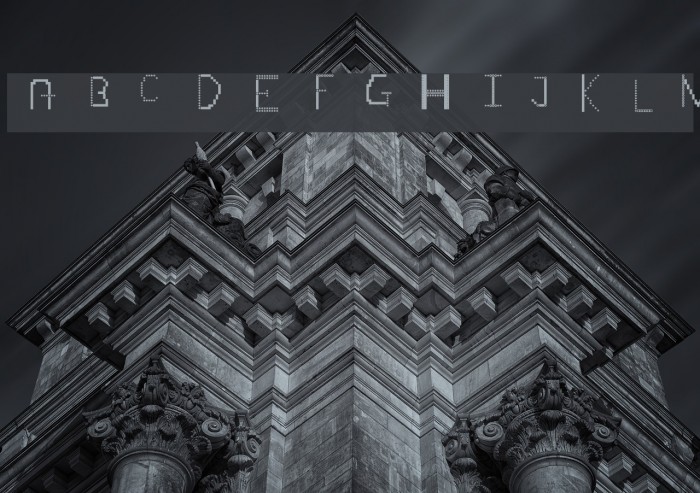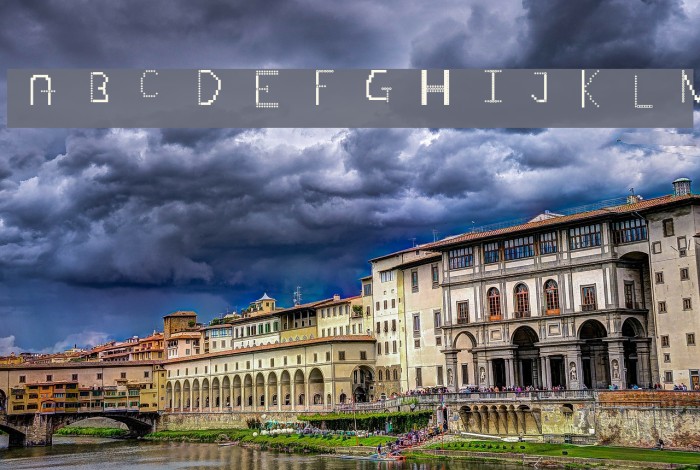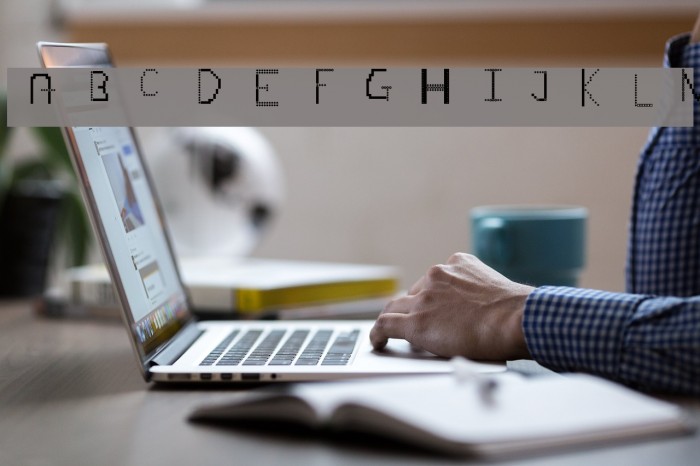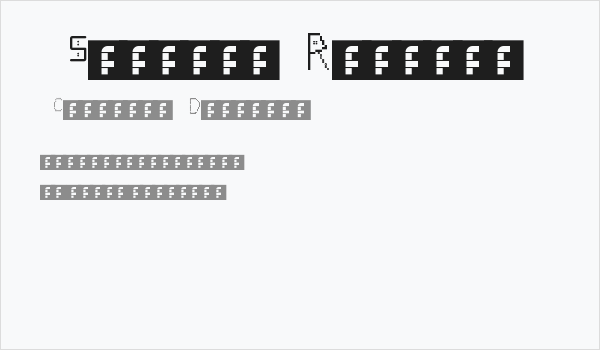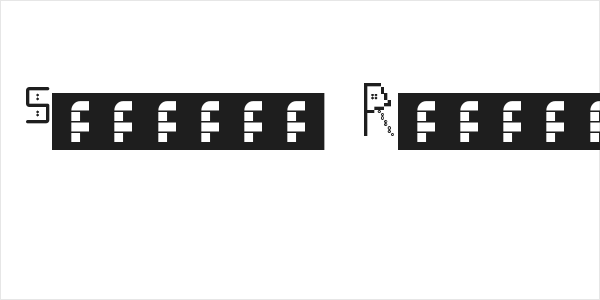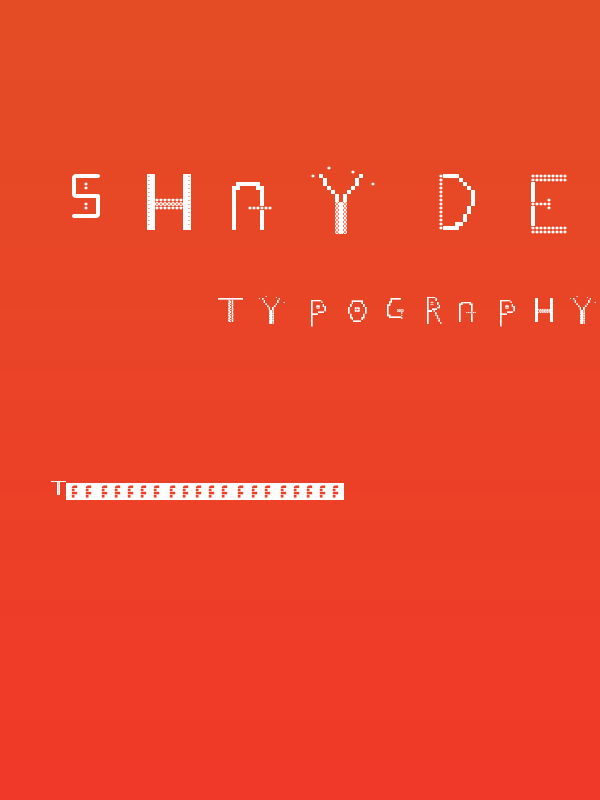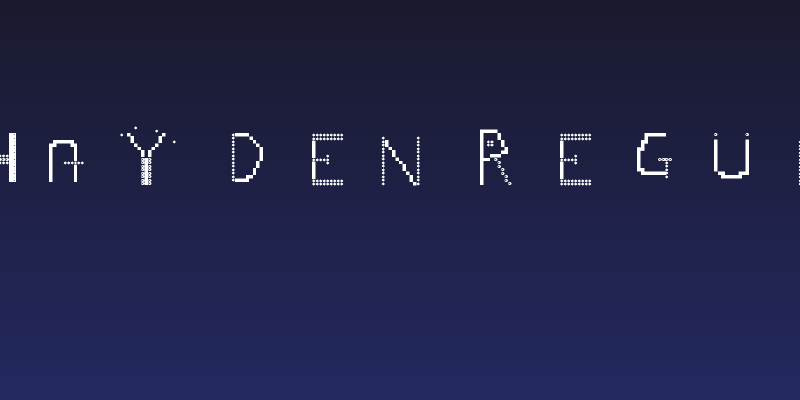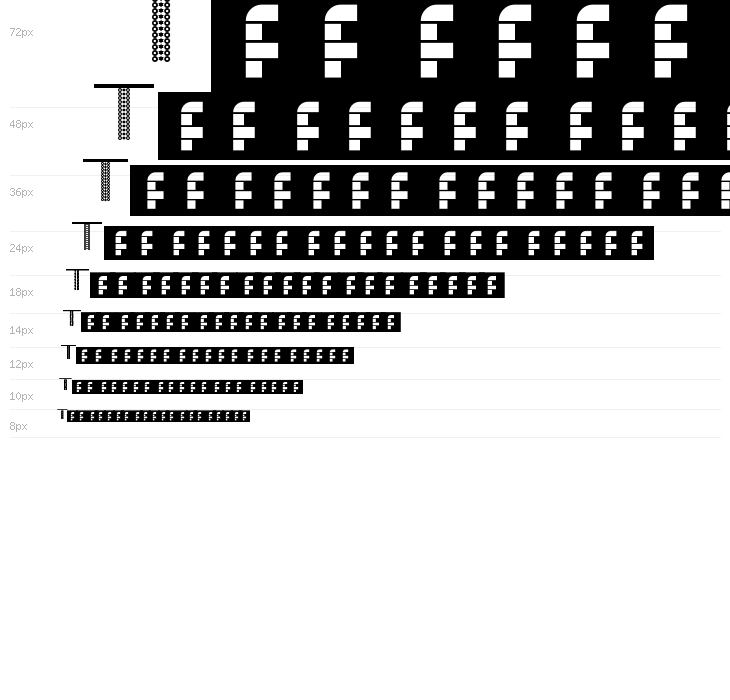
Shayden Regular Font
Shayden Regular Description
This font features a unique, pixelated design that evokes a digital or retro aesthetic. Each character is constructed with a grid-like pattern, giving it a distinct, blocky appearance. The uppercase letters are bold and prominent, while the lowercase letters maintain the same pixelated style, ensuring consistency throughout. The numbers and special characters follow the same design principles, making them easily recognizable and cohesive with the rest of the font. This style is reminiscent of early computer graphics or video game text, offering a nostalgic feel.
| Overall Style | Retro, Digital |
| Use Case | Logos, Posters, Digital Art |
| Proposed Projects | Ideal for video game design, digital art projects, retro-themed posters, or any creative work that requires a vintage digital look. |